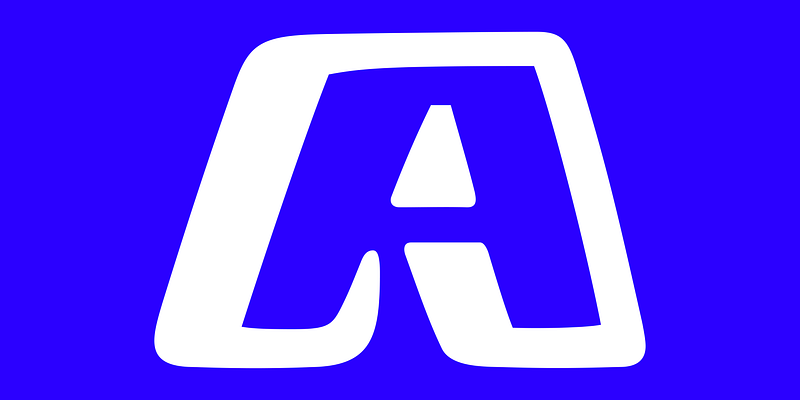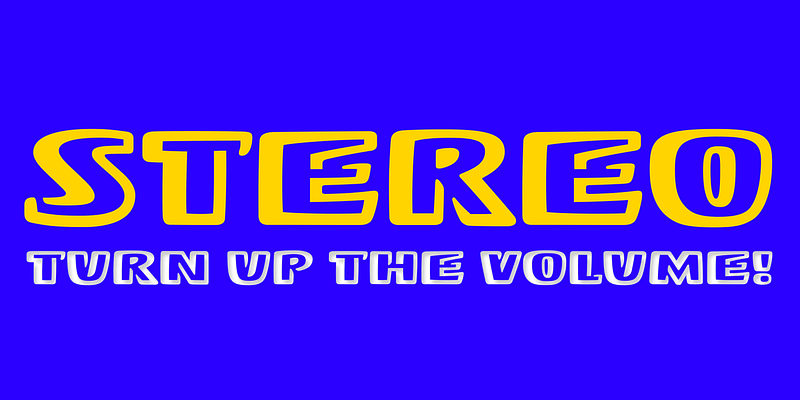
Stereo was designed by Karlgeorg Hoefer and built with an unusual understanding of the play of casual form in building a fictional third dimension. A powerful exercise by a master of figure-ground relations, Stereo can fool the eye at any size, defining shape and suggesting depth. Its playful success brings laughter to the lips of admiring users. Stereo appeared in 1968, and was spotted by Tobias Frere-Jones, who revived it digitally.